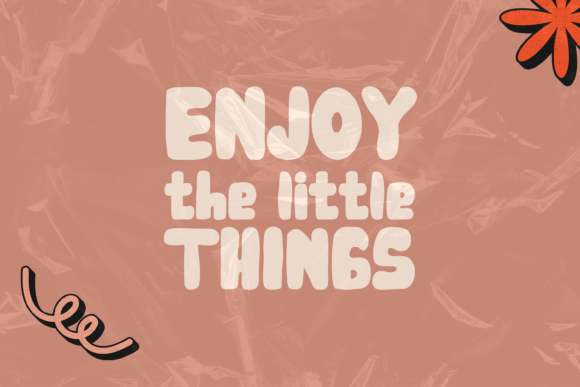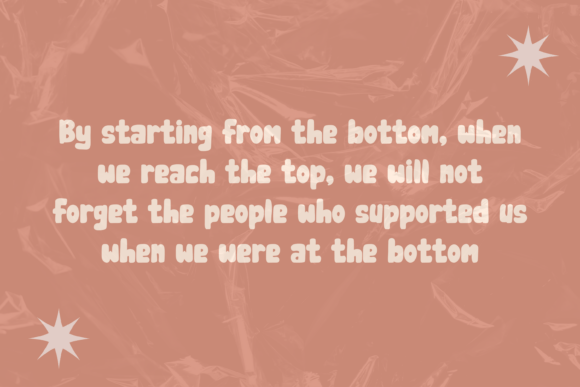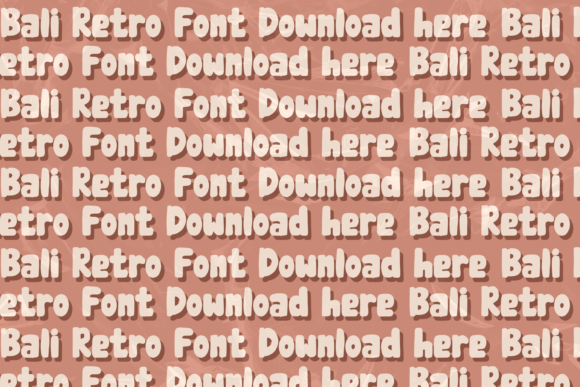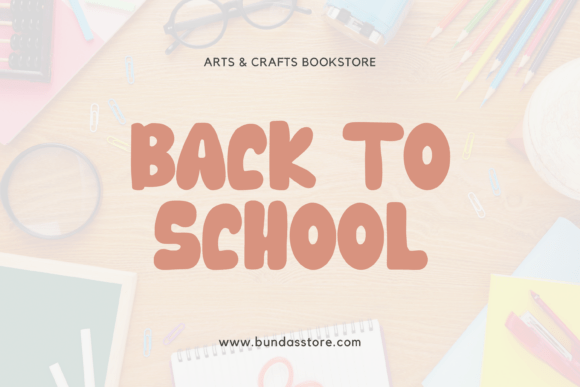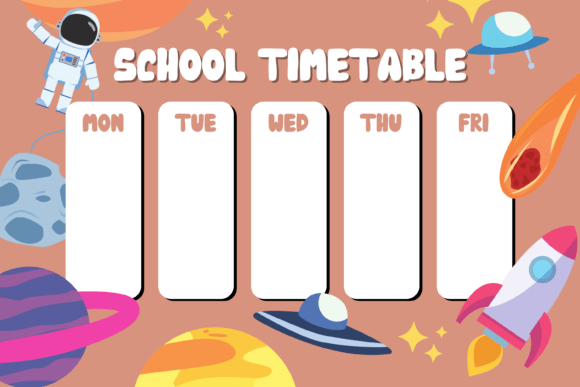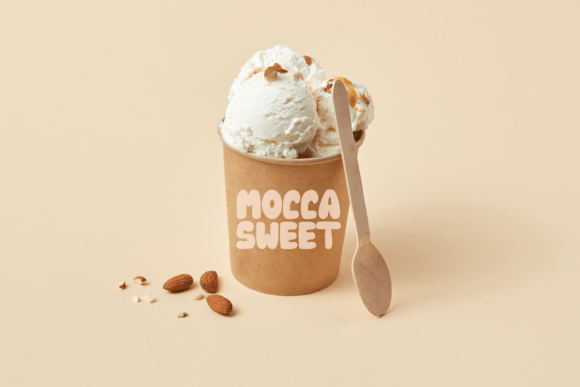
Bali Retro Font: Bringing Nostalgic Charm and Tropical Vibes to Your Designs
Are you looking for a font that can add a vibrant burst of nostalgic charm and laid-back island vibes to your creative projects? Look no further than the Bali Retro Font. This playful retro typeface is perfect for designers and crafters who want to evoke the carefree spirit of classic retro eras in their work. With its bold, bubbly, and distinctly rounded letterforms, Bali Retro is ideal for designs that embody a fun, vintage aesthetic with a touch of tropical warmth.
The Perfect Font for Retro-Inspired Designs
Bali Retro is designed to bring a cheerful and inviting message to your designs. Its unique letterforms are reminiscent of the classic retro era, with a modern twist that makes it perfect for contemporary designs. Whether you’re working on striking logos, groovy event posters, creating captivating headlines for summer campaigns, designing unique branding for travel businesses, or crafting engaging social media graphics, Bali Retro is your perfect typeface.
Key Features of Bali Retro Font
- Playful and Retro Aesthetic: Bali Retro has a distinctly retro vibe that’s perfect for designs that require a fun and nostalgic feel.
- Bold and Bubbly Letterforms: The font features bold, bubbly, and distinctly rounded letterforms that evoke the carefree spirit of classic retro eras.
- Tropical Warmth: Bali Retro has a touch of tropical warmth that makes it perfect for designs that require a laid-back island vibe.
- Versatile: The font is versatile and can be used for a wide range of design projects, from logos and posters to social media graphics and branding.
Why Choose Bali Retro Font?
There are many reasons why Bali Retro Font is the perfect choice for designers and crafters who want to add a touch of nostalgic charm and tropical vibes to their designs. Here are a few:
- Unique and Eye-Catching: Bali Retro is a unique and eye-catching font that will make your designs stand out from the crowd.
- Easy to Read: The font is easy to read, even in large and small sizes, making it perfect for a wide range of design projects.
- Customizable: Bali Retro is highly customizable, allowing you to adjust the font size, color, and style to suit your design needs.
- High-Quality: The font is of high quality, with crisp and clear lines that will make your designs look professional and polished.
How to Use Bali Retro Font in Your Designs
Using Bali Retro Font in your designs is easy. Here are a few tips to get you started:
- Pair it with Other Fonts: Bali Retro looks great when paired with other fonts, such as sans-serif fonts for a modern contrast.
- Use it for Headlines: The font is perfect for headlines and titles, where its bold and bubbly letterforms can make a big impact.
- Add a Pop of Color: Bali Retro looks great in bright and bold colors, which can add a pop of fun and playfulness to your designs.
- Experiment with Different Sizes: The font is versatile and can be used in a wide range of sizes, from small and subtle to large and bold.
Bali Retro Font is a playful retro typeface that’s perfect for designers and crafters who want to add a touch of nostalgic charm and tropical vibes to their designs. With its bold, bubbly, and distinctly rounded letterforms, Bali Retro is ideal for designs that embody a fun, vintage aesthetic with a touch of tropical warmth. Whether you’re working on striking logos, groovy event posters, creating captivating headlines for summer campaigns, designing unique branding for travel businesses, or crafting engaging social media graphics, Bali Retro is your perfect typeface.